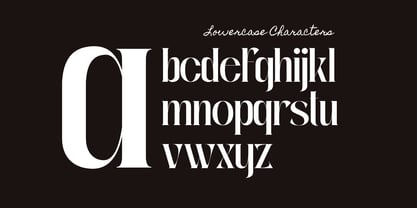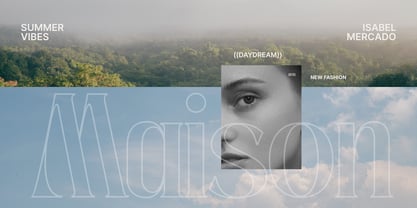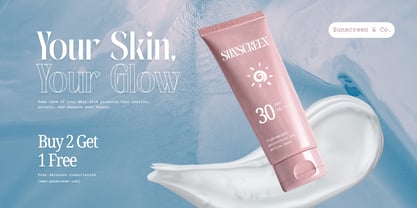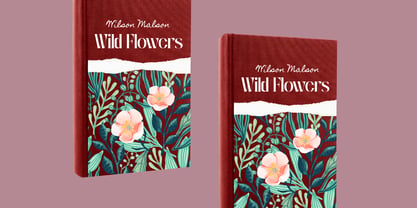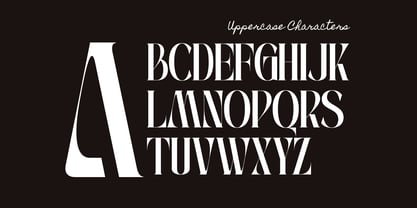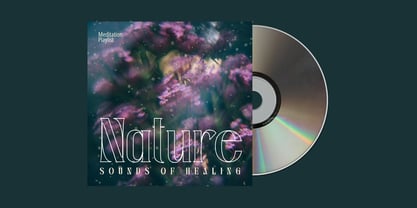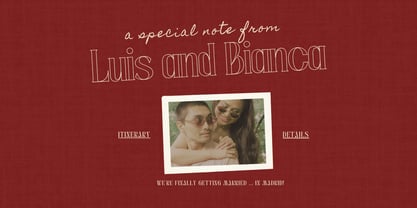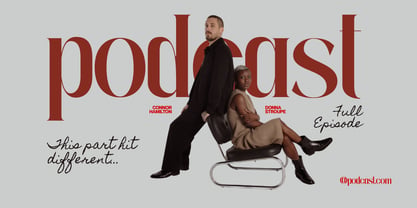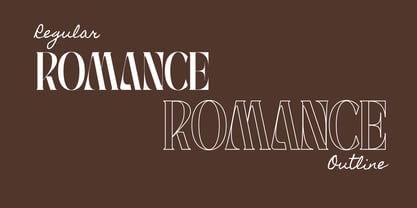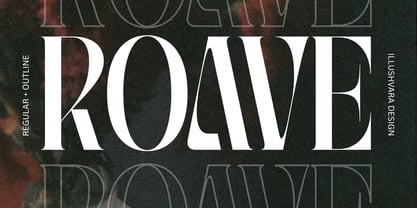
Roave
by Illushvara
The Roave Font Family was designed by Bayu Suwirya and published by Illushvara. Roave contains 2 styles and family package options. More about this family
Roave is a modern elegant serif font crafted to bring timeless sophistication to your creative projects. Featuring Regular and Outline styles, Roave delivers a refined balance of luxury and contemporary design. Perfect for fashion branding, beauty products, editorial layouts, wedding invitations, logos, packaging, social media, magazines, and premium marketing materials. With its graceful letterforms and stylish presence, Roave helps create memorable, high-end designs that stand out with elegance and professionalism.